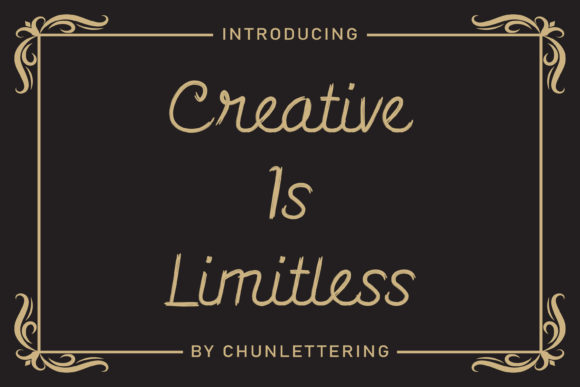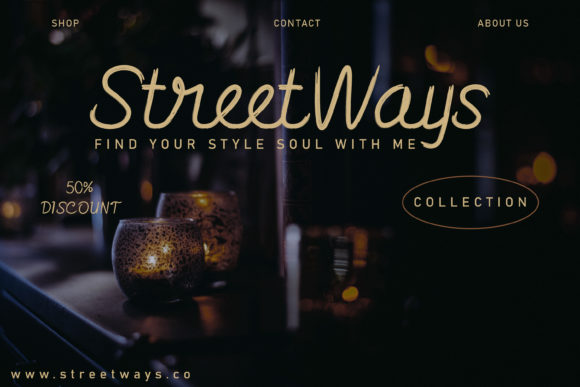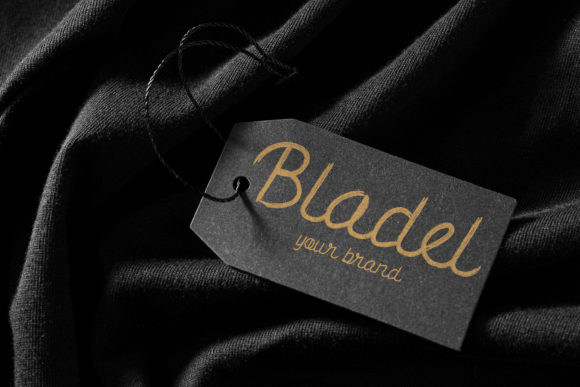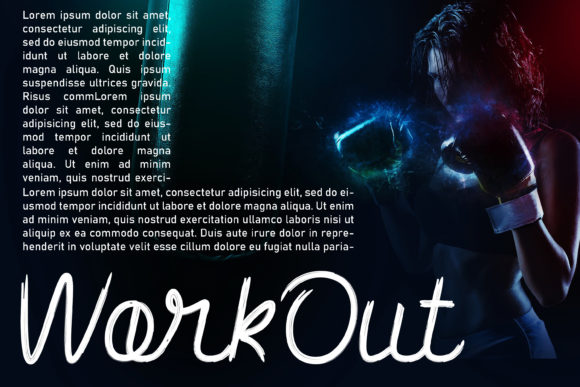
About Blackart Font
Blackart is a brushed and delicate handwritten font with personal and charming vibes. It is perfect for branding, product designs, quotes, posters, display and various other creations that require a clean touch.